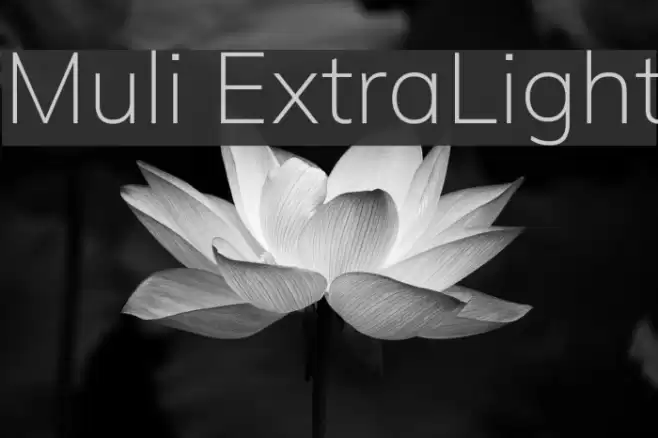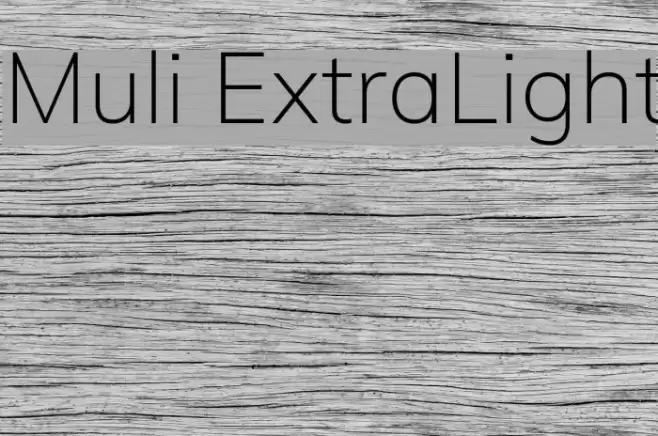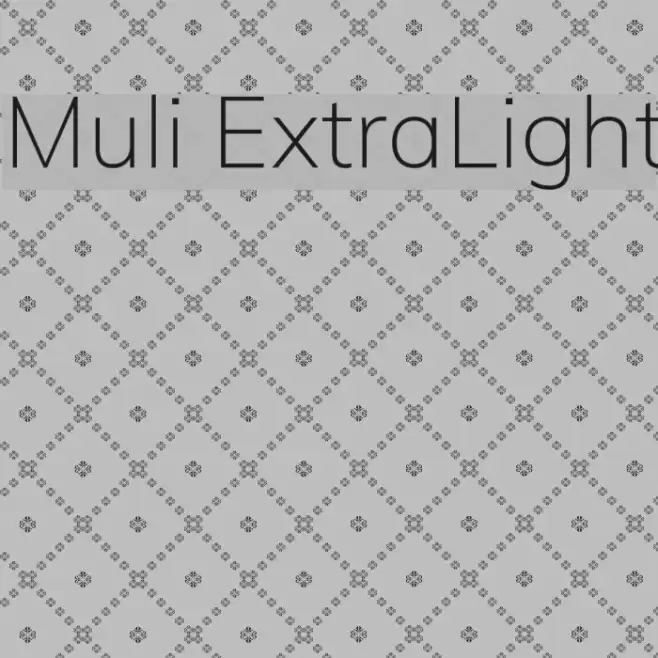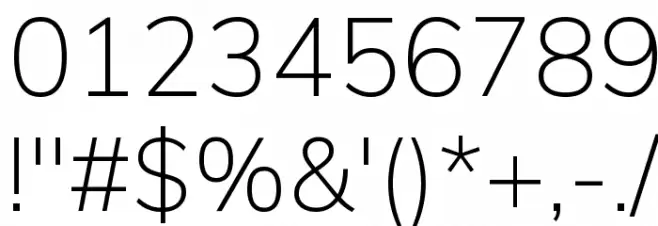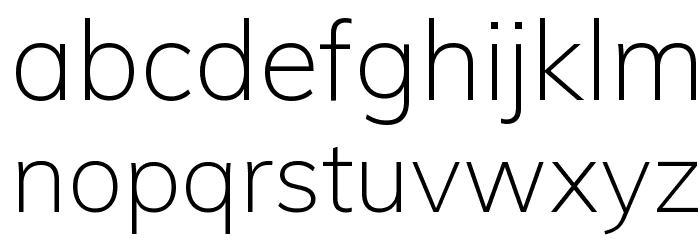
Muli ExtraLight
This font features a clean and modern sans-serif design with a focus on simplicity and readability. The characters are evenly spaced, with a uniform stroke width that gives it a sleek and contemporary appearance. The uppercase letters are tall and slightly condensed, while the lowercase letters maintain a consistent height, contributing to a balanced and harmonious look. The numerals are clear and distinct, making them easy to read. Special characters are well-defined, adding to the font's versatility. Overall, this font is ideal for projects that require a minimalist and professional aesthetic.
A clean, modern sans-serif font with a minimalist design.
- Proposed Projects: Ideal for web design, corporate branding, and editorial layouts.
- Weight: Light